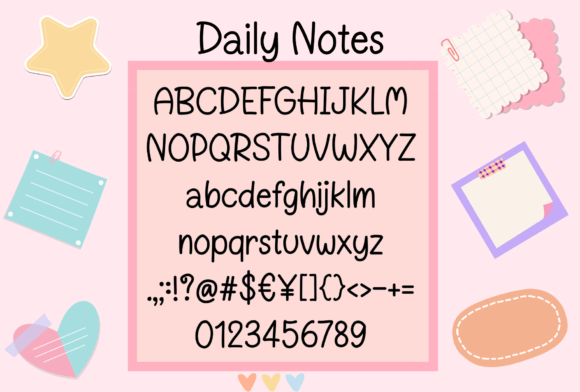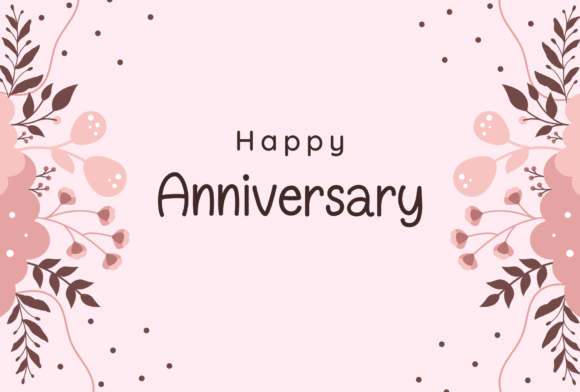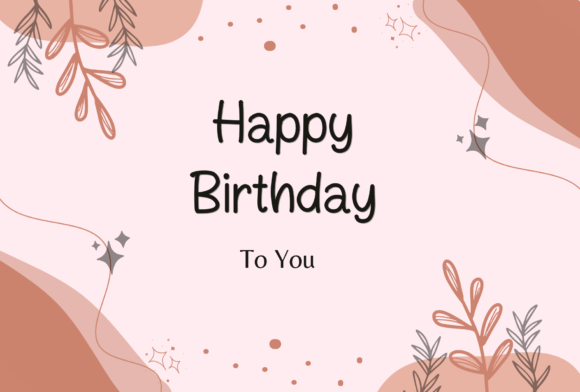
Daily Notes Font
Daily Notes is a neat and cute handwritten font. It is for education and digital planning.
You can use it on a Birthday card, Christmas card, Anniversary card, or Mother’s day card.
For products such as tshirts, mugs, stickers, planners, keychains, pillows and so much more